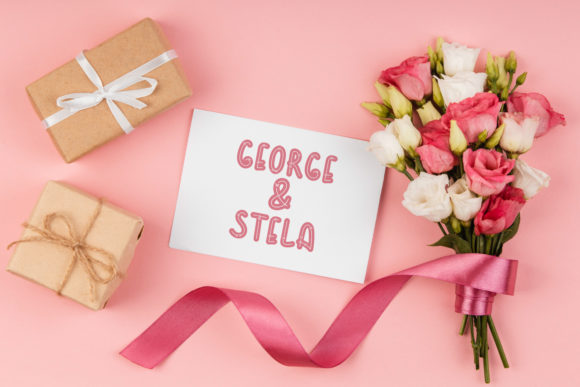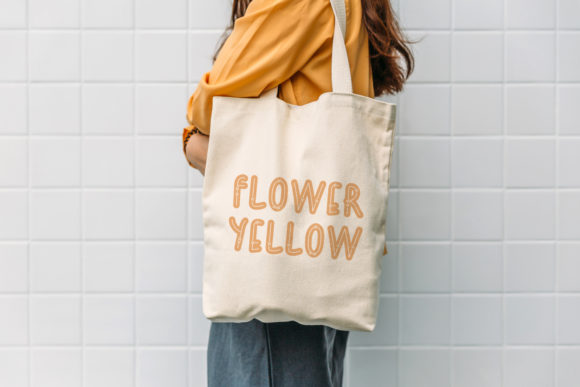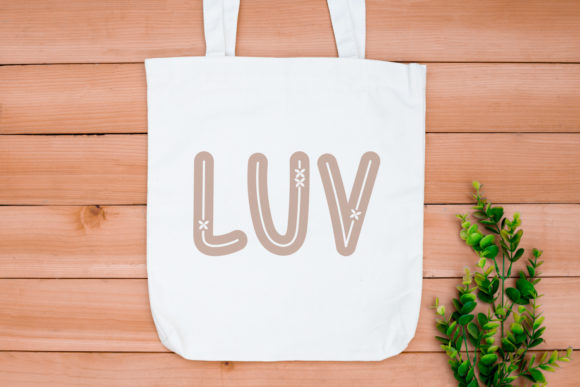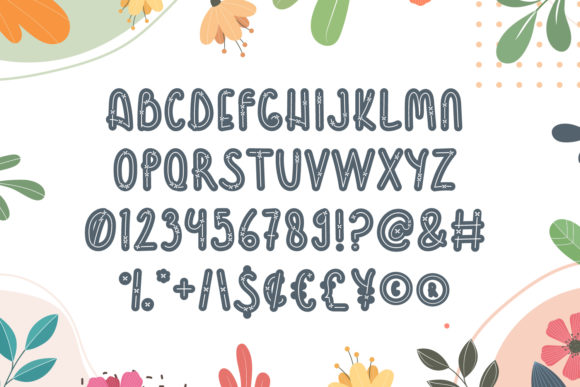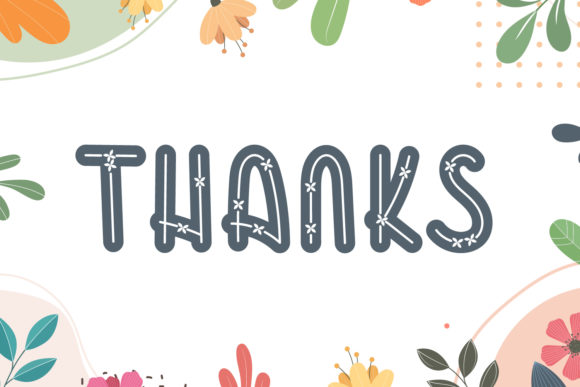
The Ultimate Guide to Flower Yellow Font: Adding a Touch of Whimsy to Your Designs
Have you ever been working on a project, pouring your heart and soul into it, only to get stuck on one tiny detail – the font? I know I have! 😩 It was for a client’s wedding invitation, and I just couldn’t find the perfect fit. That’s when I stumbled upon Flower Yellow Font, and let me tell you, it was love at first sight! 💕
A Personal Review: What I Love About Flower Yellow Font
So, what makes Flower Yellow Font so special? Here are a few things that I absolutely adore:
- ✨ It’s playful and casual, perfect for making a statement in your designs.
- ✅ The whimsical and friendly vibe makes it ideal for projects that need a touch of warmth.
- 🌼 It’s incredibly versatile – use it for titles, headings, or even body text.
While Flower Yellow Font is amazing, it’s not without its quirks. Here are a few things to keep in mind:
- 🤔 It can be a bit too playful for very formal projects. Use your discretion!
- ⚠️ Some of the glyphs and special characters might not work well in smaller font sizes.
The Backstory Behind Flower Yellow Font
While I couldn’t find any information on the exact origins of Flower Yellow Font, I like to imagine that it was created by a designer who wanted to spread joy and positivity through typography. 😊 Perhaps they were inspired by sunflowers, smiley faces, or happy memories from childhood. Whatever the story, Flower Yellow Font is sure to bring a smile to your face.
| Font Name | Flower Yellow Font |
| Author | OKEVECTOR |
Q: What type of projects is Flower Yellow Font best suited for?
A: Flower Yellow Font is perfect for playful, creative projects like wedding invitations, party decorations, and social media graphics.
Q: Does Flower Yellow Font support OpenType features?
A: Yes, Flower Yellow Font supports OpenType features like ligatures and stylistic alternates.